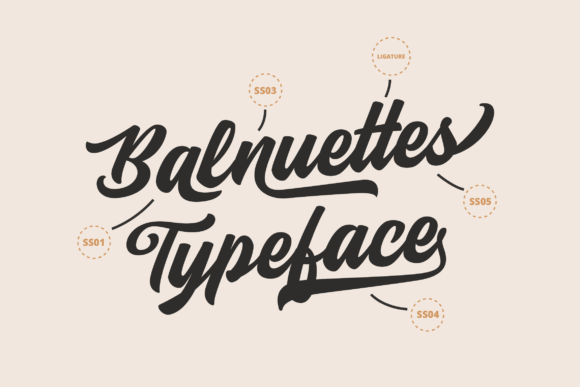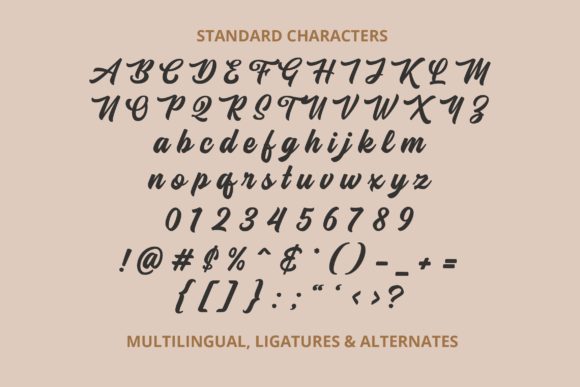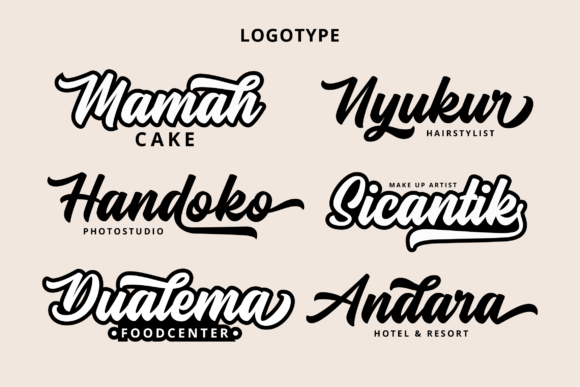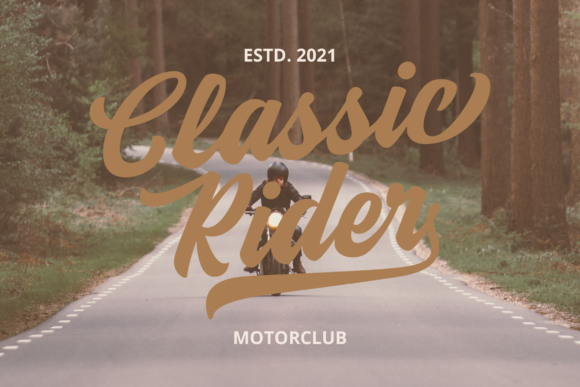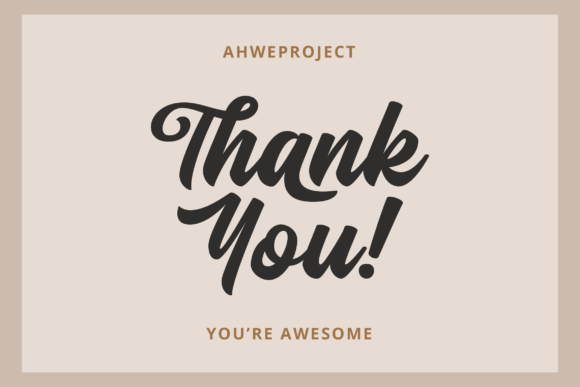
Introducing Balnuettes Font: Elevate Your Designs with Elegance and Class
Are you tired of using the same old fonts in your designs? Do you want to add a touch of elegance and sophistication to your projects? Look no further than Balnuettes, a lovely and delicate script font that’s sure to take your designs to the next level. In this article, we’ll dive into the world of Balnuettes, exploring its features, benefits, and uses, and why it’s a must-have for designers and crafters alike.
What is Balnuettes Font?
Balnuettes is a beautiful script font that’s been carefully crafted to bring a sense of refinement and luxury to your designs. With its delicate lines, flowing curves, and intricate details, this font is perfect for creating stunning visual content that exudes elegance and class. Whether you’re working on a branding project, a wedding invitation, or a fashion magazine, Balnuettes is the perfect choice for adding a touch of sophistication and glamour.
Key Features of Balnuettes Font
• PUA Encoded: Balnuettes is PUA (Private Use Area) encoded, which means you can access all of the amazing glyphs and ligatures with ease. This makes it simple to use and incorporate into your designs, without the need for complicated font editing software.
• Delicate and Elegant: Balnuettes features delicate lines, flowing curves, and intricate details that give it a truly elegant and refined look.
• Highly Versatile: This font is perfect for a wide range of design projects, from branding and advertising to wedding invitations and fashion magazines.
Benefits of Using Balnuettes Font
So why choose Balnuettes for your design projects? Here are just a few benefits of using this stunning script font:
• Adds Elegance and Sophistication: Balnuettes brings a level of refinement and luxury to your designs, making them stand out from the crowd.
• Increases Versatility: With its highly versatile design, Balnuettes can be used for a wide range of projects, from formal events to everyday branding.
• Enhances Creativity: The unique and intricate details of Balnuettes inspire creativity and imagination, helping you to create truly unique and eye-catching designs.
Who Can Benefit from Balnuettes Font?
Balnuettes is perfect for a wide range of designers and crafters, including:
• Graphic Designers: Add a touch of elegance and sophistication to your branding, advertising, and marketing materials.
• Wedding Planners and Stylists: Create stunning wedding invitations, stationery, and decor with Balnuettes.
• Fashion Designers: Use Balnuettes to add a touch of luxury and glamour to your fashion branding and marketing materials.
• Crafters and Artists: Incorporate Balnuettes into your handmade crafts, artwork, and DIY projects for a unique and eye-catching touch.
Tips for Using Balnuettes Font
Here are a few tips for getting the most out of Balnuettes:
• Pair with Bold Fonts: Combine Balnuettes with bold, modern fonts for a striking contrast.
• Experiment with Colors: Try Balnuettes with different colors and textures to add depth and interest to your designs.
• Use for Headlines and Titles: Balnuettes is perfect for headlines, titles, and other display text, where its elegant and refined design can shine.